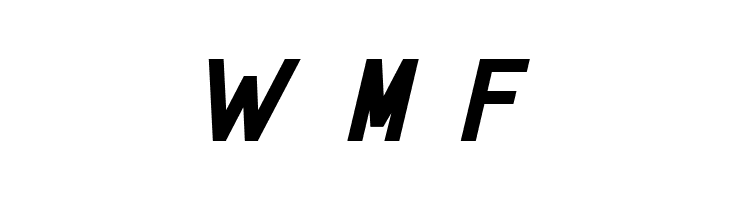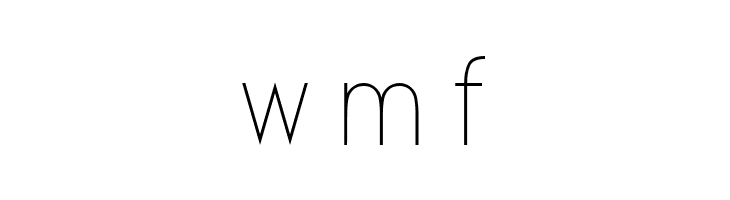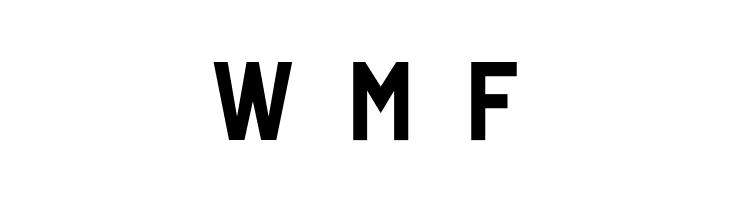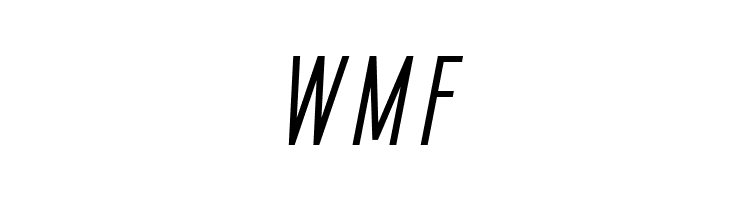
A bold, modern font with a sleek and slightly condensed design.
A sleek, modern font with tall, narrow characters and consistent stroke width.
A sleek, modern, and slightly slanted font with elongated, narrow characters.
A bold, italicized font with a modern, condensed style.
A bold, italic, and modern font with a sleek, dynamic style.